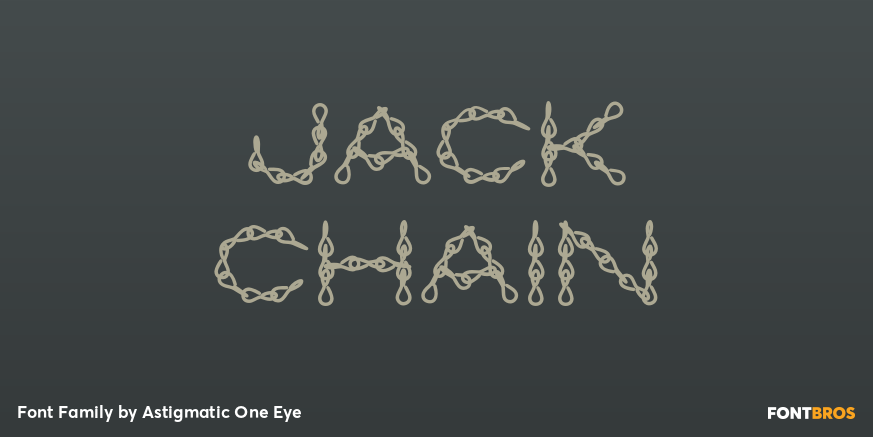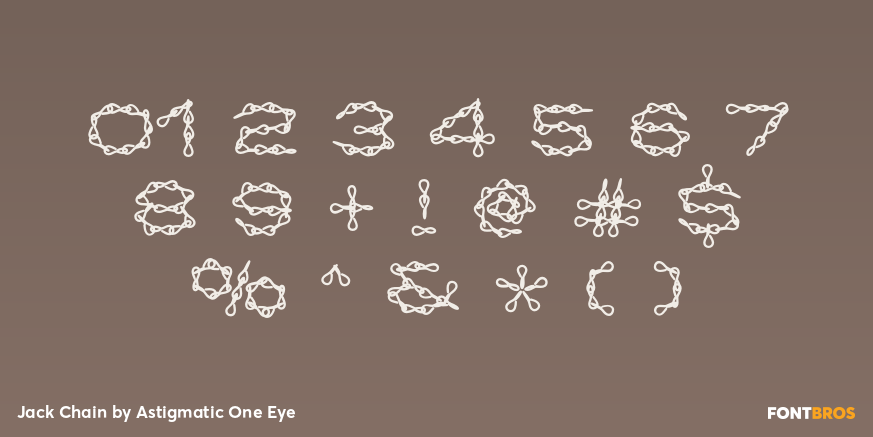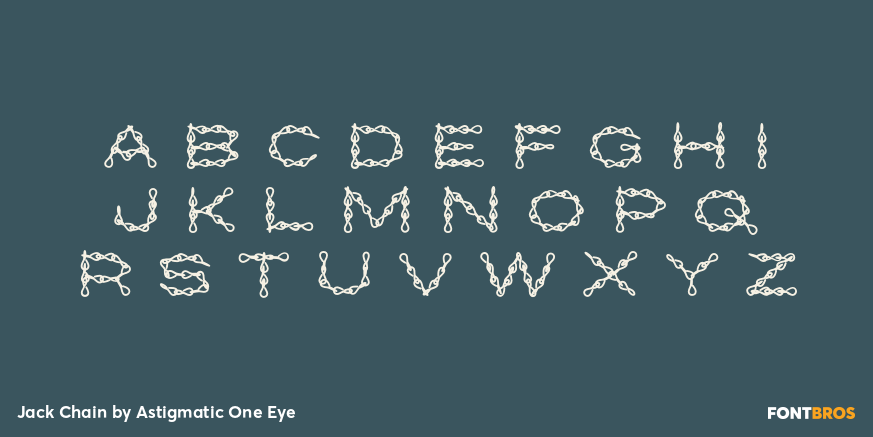
Jack Chain
Font Family by Astigmatic One Eye
A tough and industrial typeface, Jack Chain is easily one of the most detailed chain typefaces available.